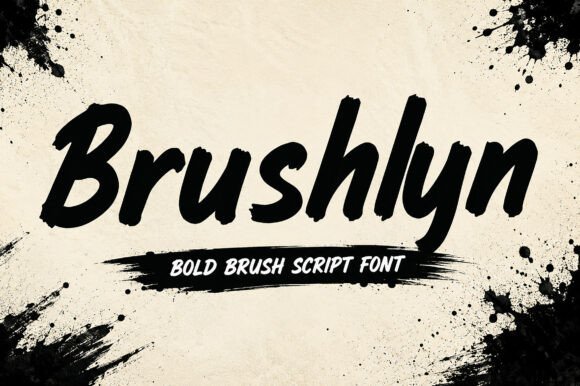
Unleash Your Creativity with Brushlyn: The Bold Brush Script Font
Have you ever been in the middle of a design project, and suddenly, you’re stuck on finding the perfect font? I recall a recent experience where I was working on a branding project for a streetwear client, and I just couldn’t find a font that captured the edgy, handcrafted vibe they were looking for. That’s when I stumbled upon Brushlyn, a bold and expressive brush script font that instantly elevated my design game.
First Impressions: What Makes Brushlyn Special
Brushlyn is more than just a font – it’s a statement piece. With its natural brush strokes, rough edges, and authentic hand-painted details, it brings an undeniable energy and personality to any creative project. Whether you’re designing a modern streetwear brand, a vintage-inspired logo, or eye-catching marketing materials, Brushlyn adds a dynamic and artistic touch that sets your work apart.
Ideal Use Cases for Brushlyn
- Logo Design
- Branding Projects
- T-Shirt Designs
- Packaging & Labels
- Posters & Flyers
- Social Media Graphics
- YouTube Thumbnails
- Product Labels
- Quotes
- Advertising
- Creative Merchandise
What I Love About Brushlyn ✨
- ✅ Unique and Authentic Look: The hand-painted feel of Brushlyn gives designs a genuine, handcrafted look that’s hard to replicate with other fonts.
- ✅ Excellent Readability: Despite its bold and expressive nature, Brushlyn remains surprisingly readable, even at smaller sizes.
- ✅ Versatility: This font works beautifully across both digital and print projects, making it a versatile addition to any design toolkit.
- ✅ Dynamic and Artistic: Brushlyn adds a touch of personality and flair to any design, making it perfect for creative projects.
While Brushlyn is an amazing font, there are a few things to keep in mind. For instance, due to its intricate brush strokes, it might not be the best choice for very small text sizes or low-resolution images. Additionally, some of the more stylistic alternates can be a bit finicky in certain design software, but this is easily overcome with a little experimentation.
One thing to note is that Brushlyn’s bold strokes and rough edges can make it challenging to use in certain design contexts. For example, it may not be the best fit for designs that require a high level of legibility, such as body text or captions. However, for headlines, titles, and other display text, Brushlyn shines.
The Backstory Behind Brushlyn
Brushlyn was inspired by the raw, unbridled energy of street art and the meticulous detail of hand-painted typography. The creator, a passionate typographer, aimed to capture the essence of handcrafted artistry in a digital font. The result is Brushlyn – a font that embodies both the spontaneity of street art and the precision of digital design.
Q: What makes Brushlyn unique?
A: Brushlyn’s unique blend of natural brush strokes, rough edges, and authentic hand-painted details sets it apart from other script fonts.